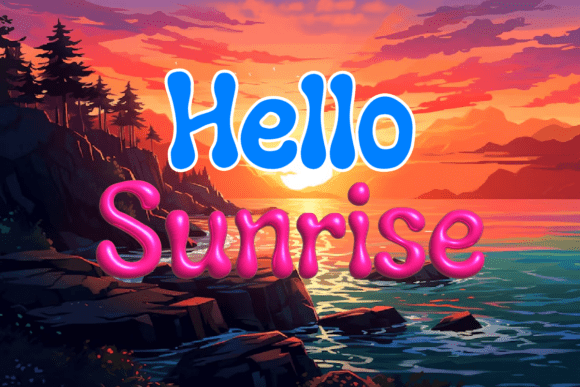
Daisydumpling Outline Font
Daisy Dumpling is a playful, bubbly display font bursting with personality. Its letters are crafted in a glossy, inflated style that almost looks like soft balloon sculptures, giving every word a joyful, tactile feel. The alternating bold blue and vibrant pink hues make it pop visually, while the smooth curves and rounded edges create a friendly, approachable vibe. Enhanced by fun emoji accents and a subtle 3D shading effect, this font captures a lighthearted, whimsical energy perfect for children’s designs, party invitations, or cheerful merchandise. Its six versatile styles allow for creative variety while maintaining its signature charm.